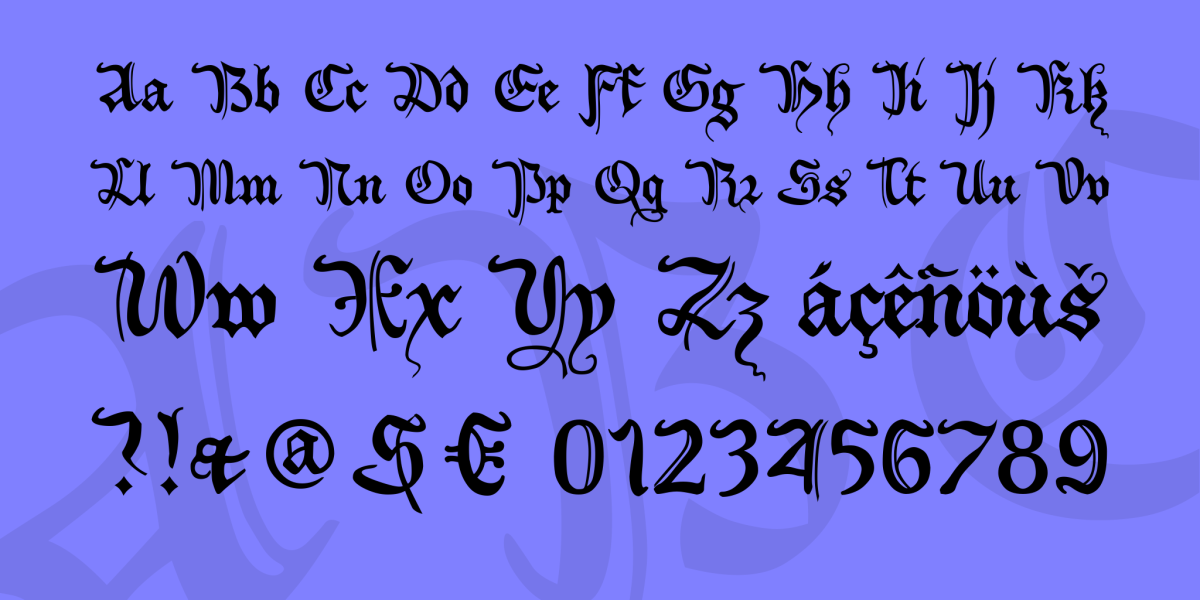
XiBeronne is, of course, plain Black Letter -- at least as far as the lower case glyphs are concerned. They were inspired by a very beautiful and very celebrated French manuscript written at the beginning of the 15th century, containing -- and splendidly illustrating -- Gaston Phoebus' Book of the Hunt. Illustrations of that manuscript were displayed on the Net by the Bibliothèque Nationale de France, some years ago (sorry to say, they are gone by now); and I was charmed by those lovely images into trying my hand at the tiny bits of writing that appeared in most of them. However, there were very few upper case letters, and those few were rather plain ones. Therefore, I took a genuine A from another source and shaped the rest of my upper case alphabet to match it (more or less, according to my skills).
Just a bit of information: Gaston Phoebus, Count of Foix (Foix is a pretty town on the French side of the Pyrenees), was a Gascon nobleman, living from 1331 up to 1391. He went occasionally to fight in Prussia, intent on avoiding to take sides in the war raging between French and Englishmen in southern France (or Aquitania, as it was called then), throughout the 14th century. History doesn't portray him as a pleasant character. His Book of the Hunt, however, written during the last years of his life, didn't rest confined to that expensive manuscript. Among the earliest works to be published in print, it turned into a bestseller at once, and continued as such, all over Europe, for centuries to come. He was the most famous authority on his subject, and his instructions were followed so eagerly that by the 19th century, France had been literally emptied of deer. I sincerely hope this piece of news won't keep you from enjoying my font (after all, the illiterate poachers may have had a hand in the disaster, mayn't they?).
As usual, you'll find a long s on the number sign.
- There is an ending f on the left bracket...
- ...and an ending t on the right bracket
- The left curly bracket contains a double l
- On the right curly bracket you'll find a little hook to be employed before the first letter of words - beginning with i, j, m, n, p, r, u, v, w, and z
- The bar sign contains an alternate r.
- Finally, on the ASCII tilde you'll find a contemporary abbreviation sign of indefinite meaning, to be employed as a decoration wherever you see fit to place one. It's to be - handled like an accent (the char won't move when you type it).